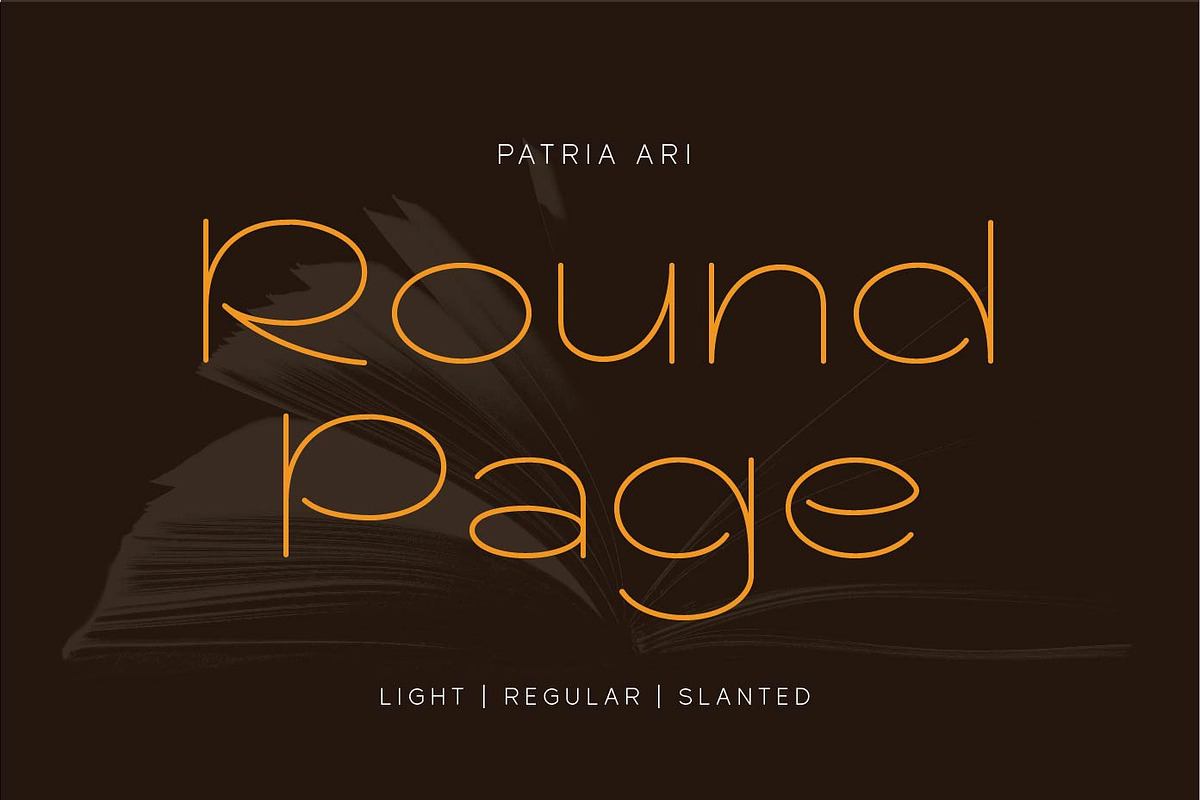
Round Page - Round Monoline Fonts Free Download is a clean and modern typeface with smooth, uniform strokes that give it a soft, friendly character. With its rounded monoline style, this font is perfect for logos, branding, minimalist packaging, social media content, stationery, and editorial design.
Its simplicity and clarity make it ideal for both headlines and body text, offering a balance of professionalism and approachability. Round Page works beautifully across various design themes—from tech and lifestyle to creative portfolios and handmade goods.